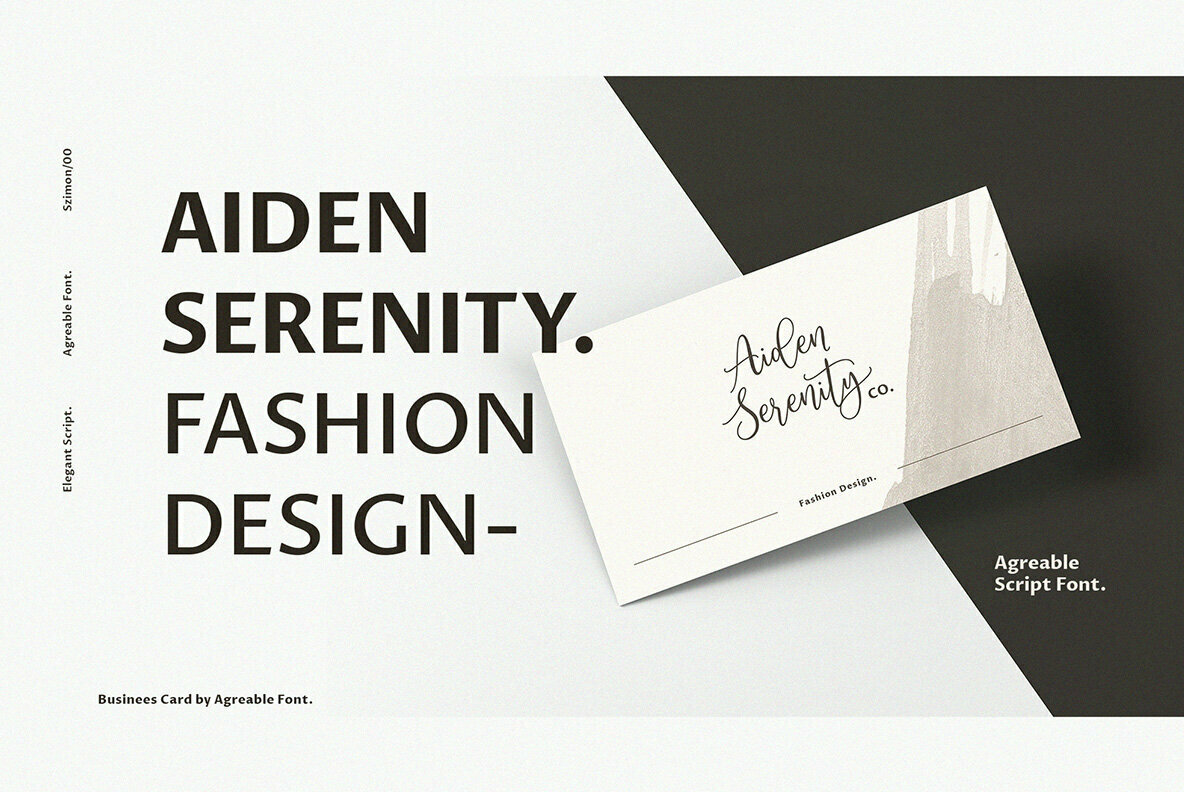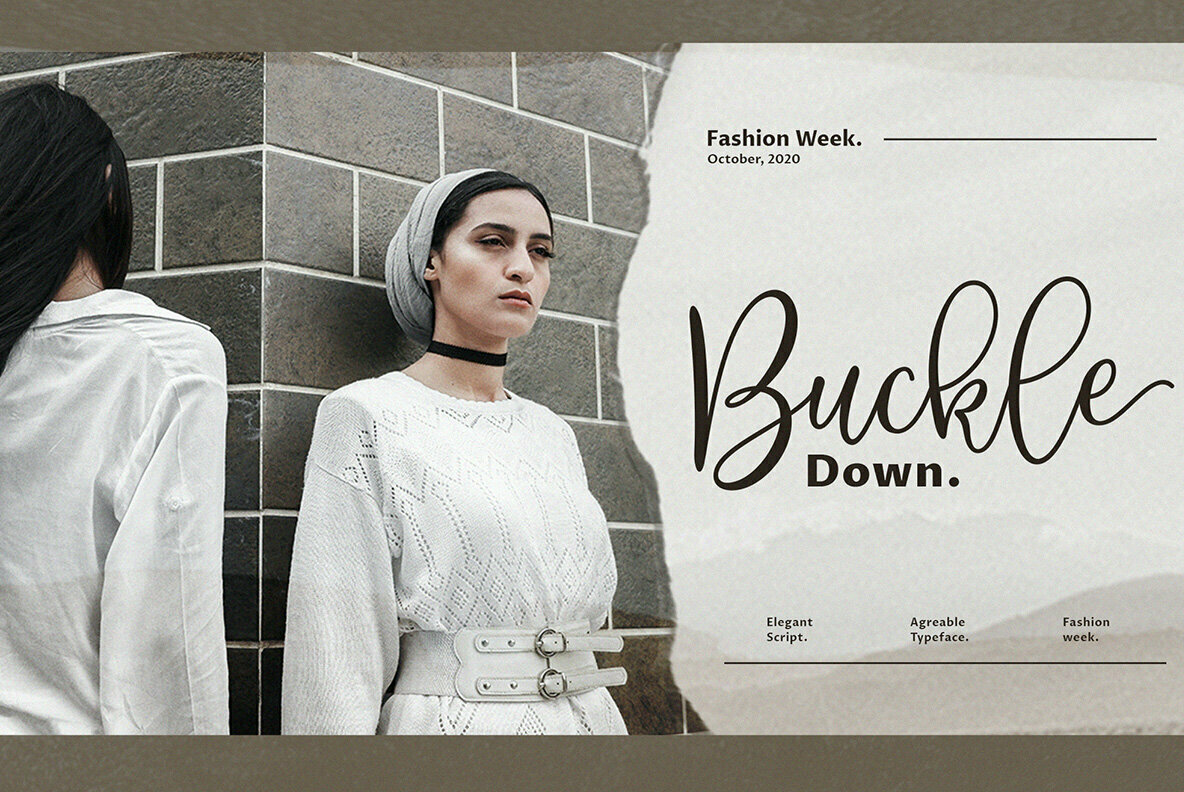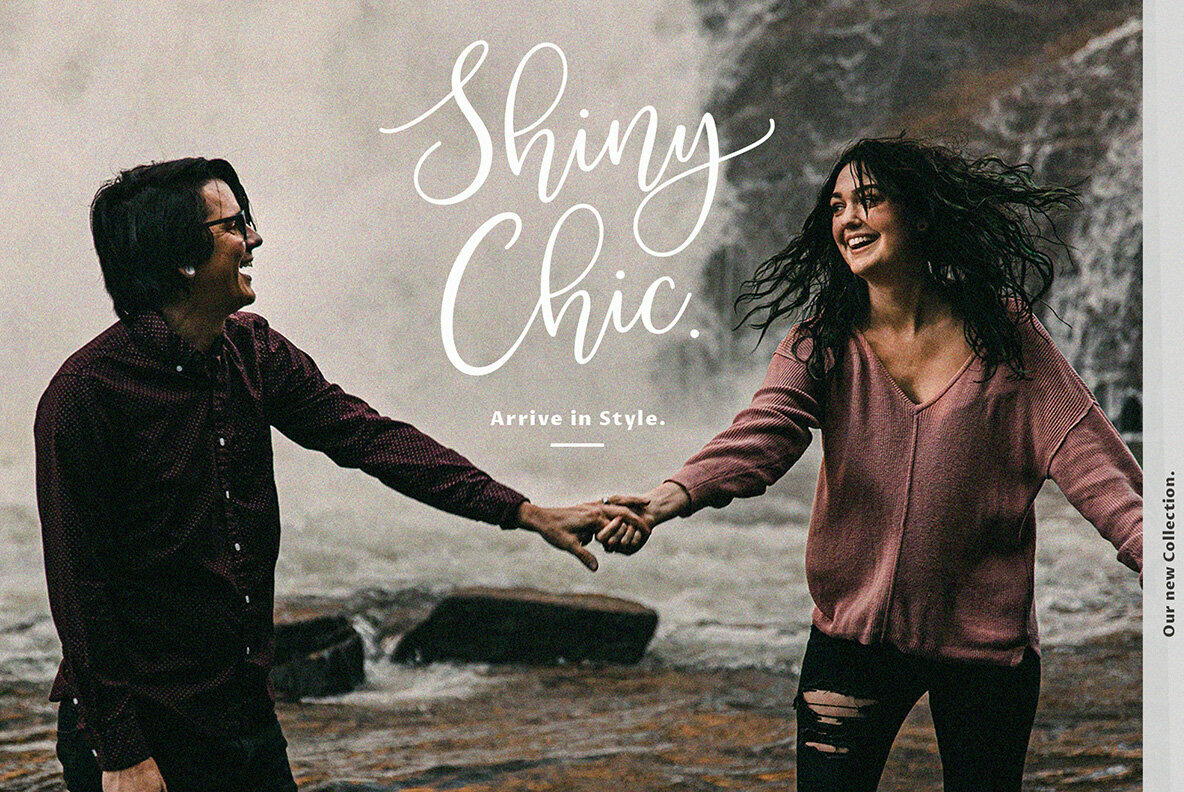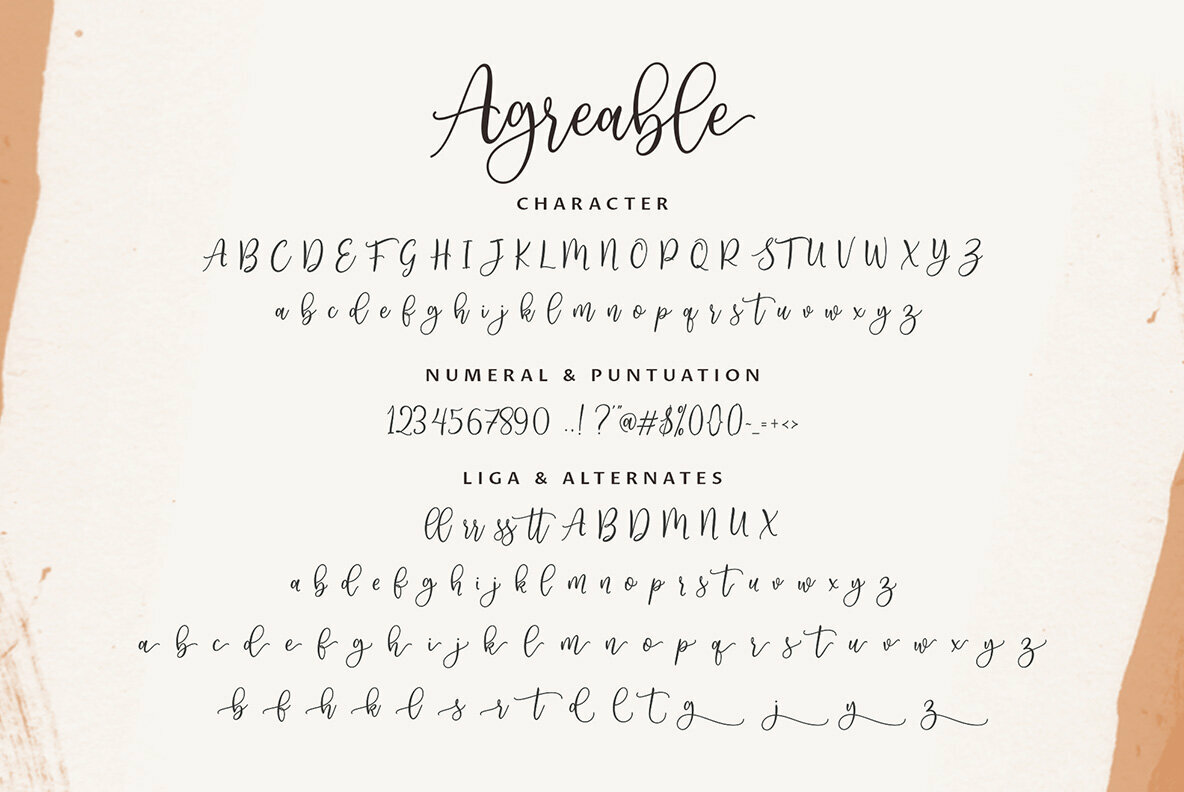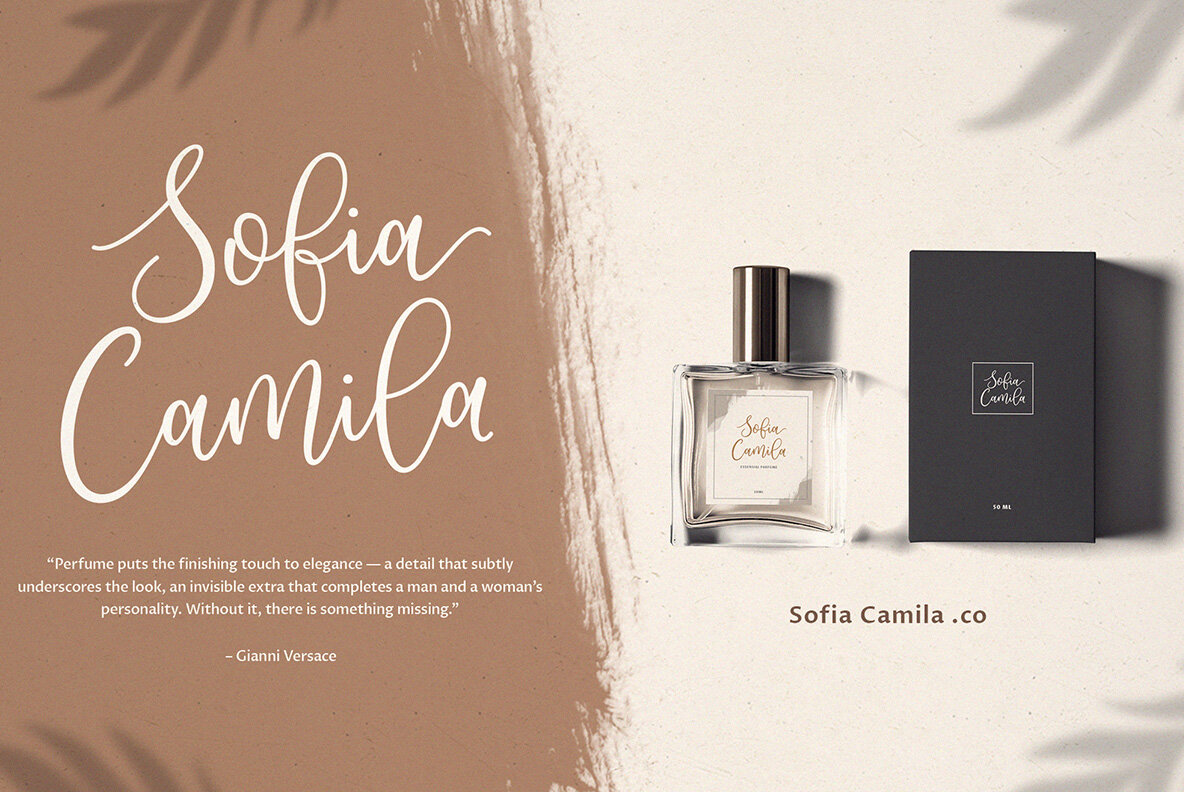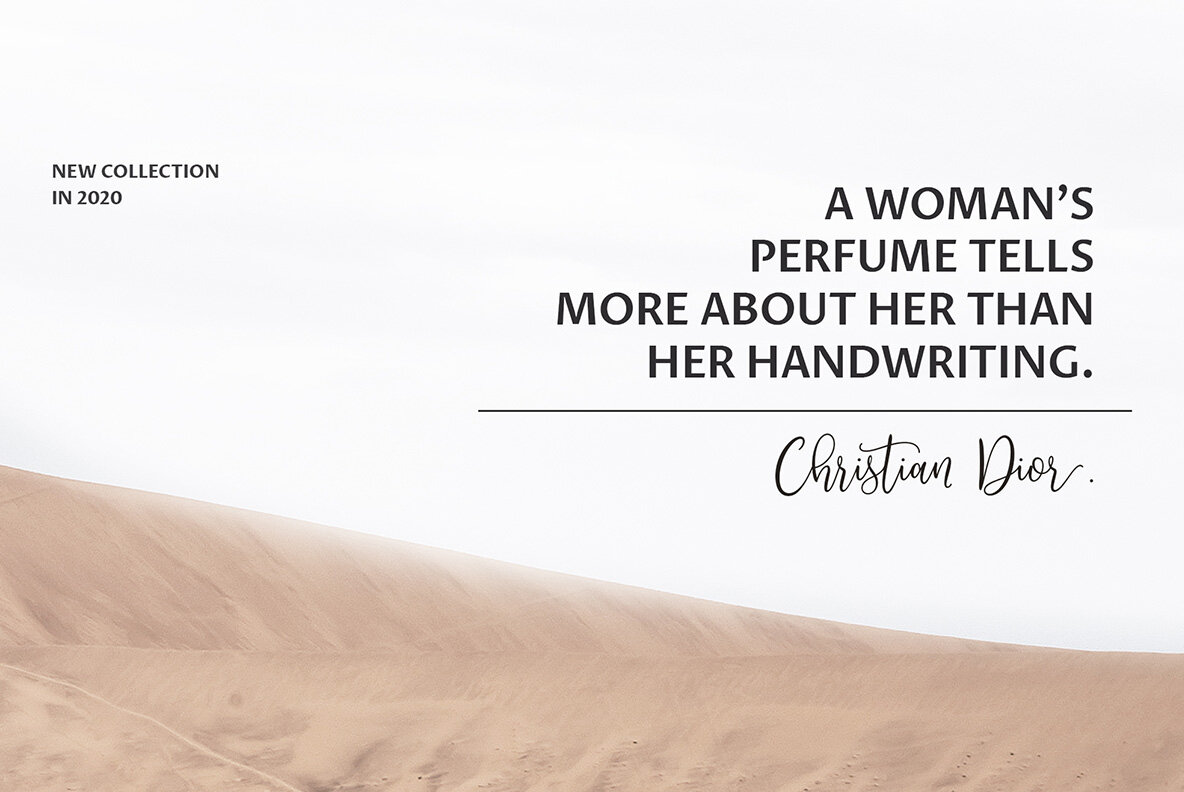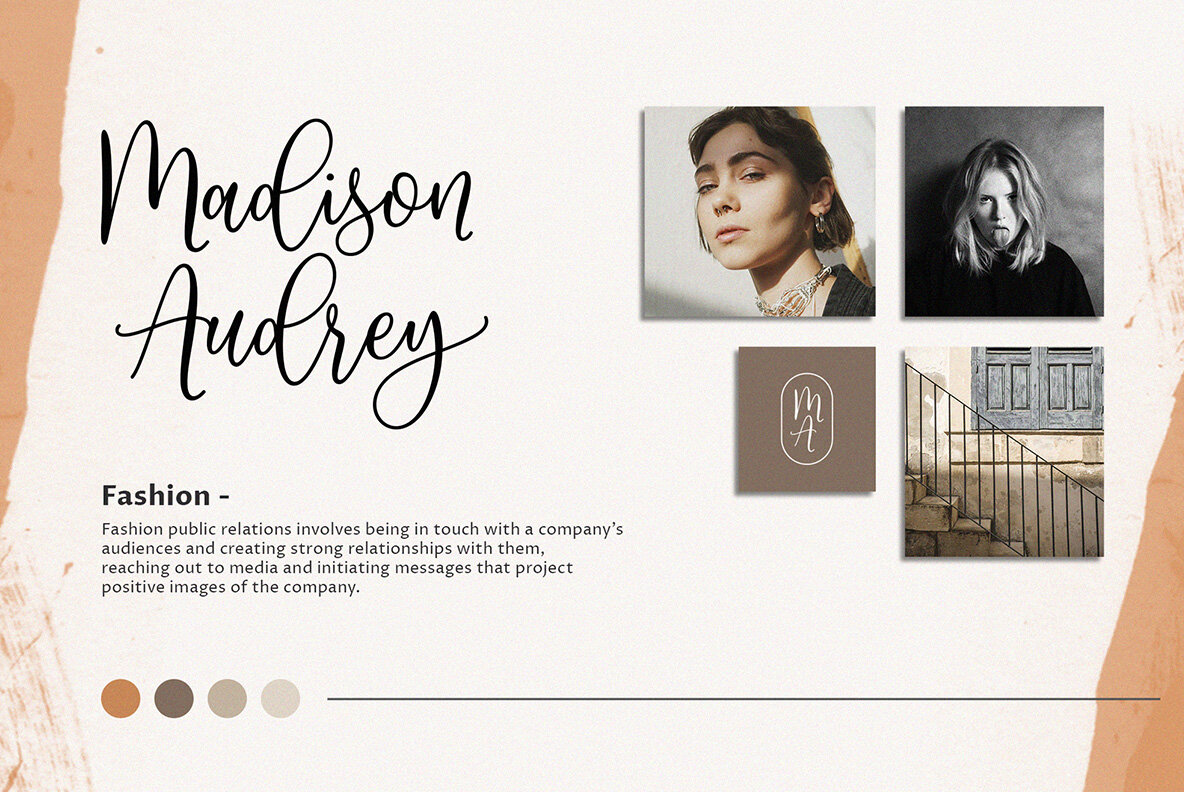
Agreable Font
Agreable Script
The Agreable Script font by Sizimon brings a touch of luxury to any project, creating an instant impression with its free-flowing and bouncy curves. Designed for those who value the art of handmade typography, Agreable Script enhances various creative endeavors with its unique charm. Features:Agreable Script: Effortless Elegance for Modern Designs